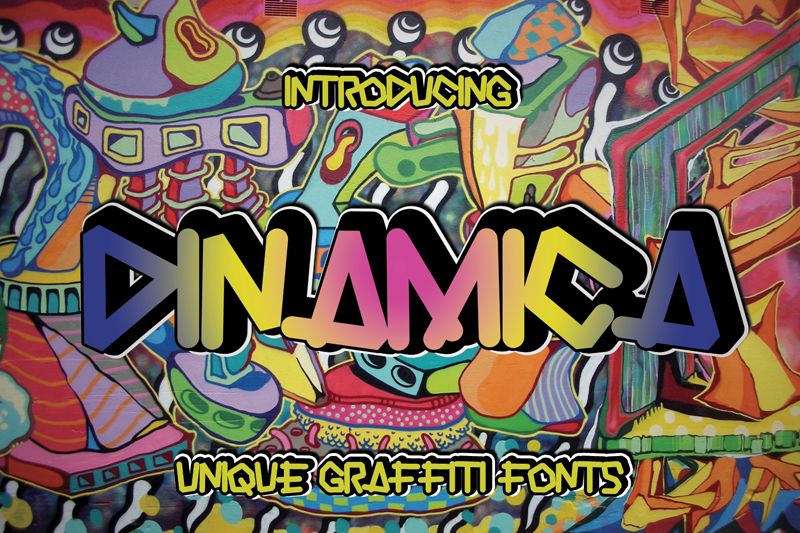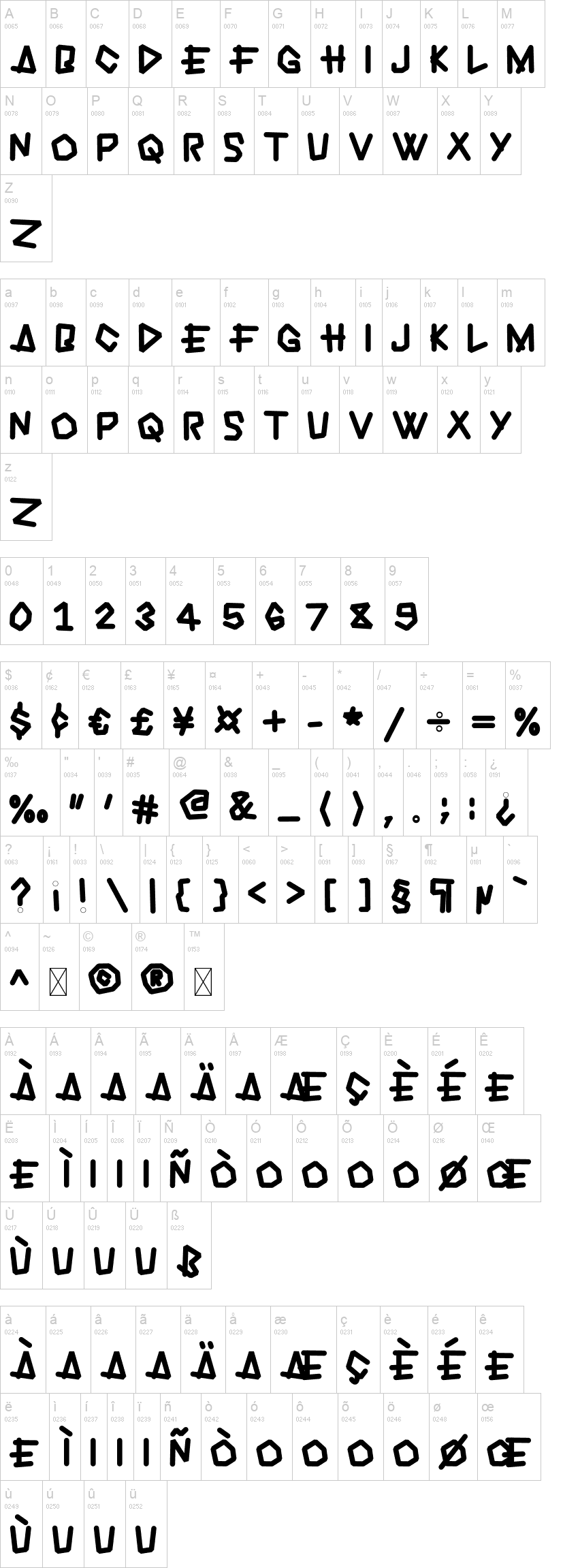
Note of the authorDinamica is an awesome, graffiti-styled display font that has a friendly, colorful vibe. This font is suitable for designs such as t-shirts, sportswear, logos, advertisements, clothing, and more.